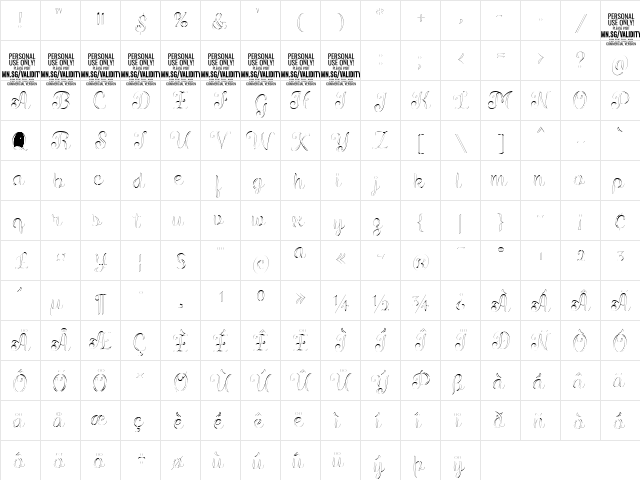
Validity Script Thin PERSONAL U Regular Font Preview
Design Context for Validity Script Thin PERSONAL U Typeface
Validity Script Thin PERSONAL U brings a calligraphic fluidity to the page — its connecting strokes and expressive curves give it an unmistakably human quality. The delicate stroke weight brings airiness and refinement to layouts.
Font Pairing: Combine Validity Script Thin PERSONAL U with a simple geometric sans for maximum contrast — the tension between flowing curves and clean structure is a classic typographic pairing.
Pro Tip: Pair Validity Script Thin PERSONAL U with a clean sans-serif for supporting text. The contrast between fluid script and geometric structure creates an elegant typographic hierarchy.